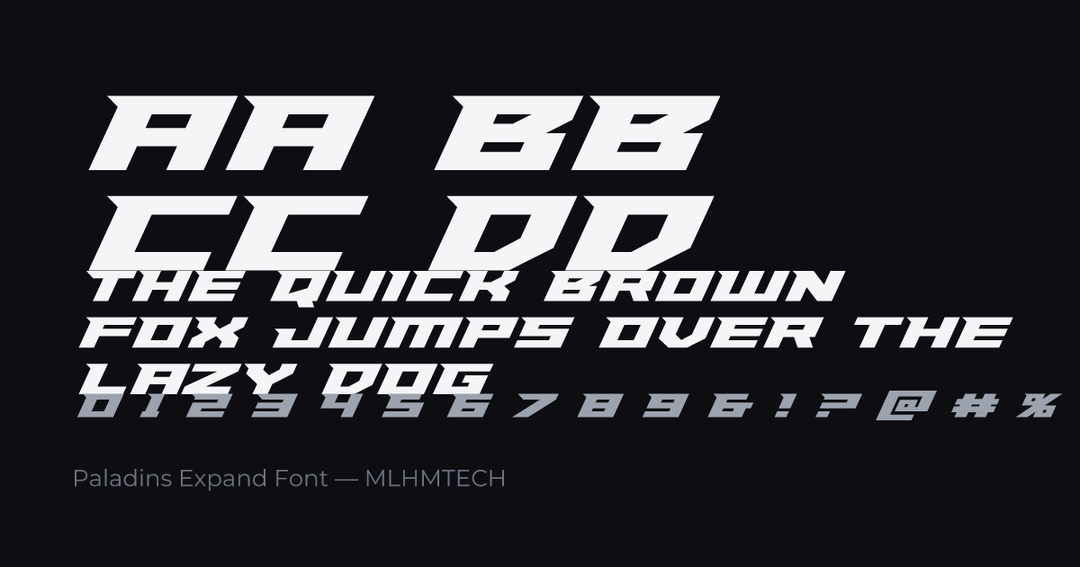
Paladins Expand Font
Paladins Expand is a bold, modern display font ideal for gaming graphics, titles, and logos. Includes TTF file.
Paladins Expand is a striking display font that commands attention. Its bold, expanded letterforms are perfect for titles, headers, and branding that needs a strong, modern presence. Whether you're creating gaming thumbnails, esports logos, or poster designs, this font adds a dynamic edge.
The font comes in TTF format, ensuring compatibility with most design software. Use it for large text to make a statement, or pair it with a clean sans-serif for contrast. Its geometric shapes and sharp angles give it a futuristic feel, ideal for tech and gaming projects.